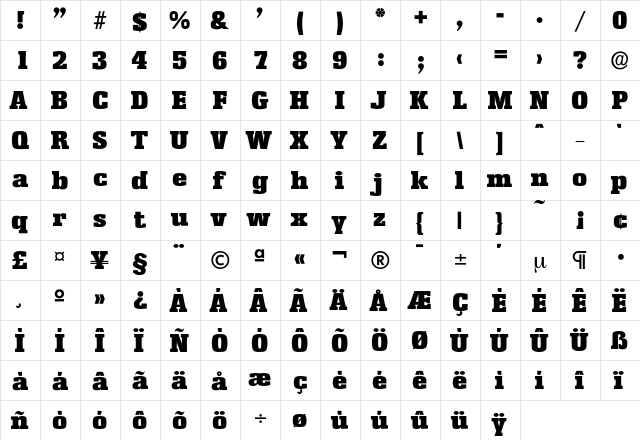
Enschede-Heavy Regular
Design Context for Enschede-Heavy Typeface
Enschede-Heavy offers clean, dependable letterforms without strong stylistic allegiance, making it a practical choice for designers who need flexibility.